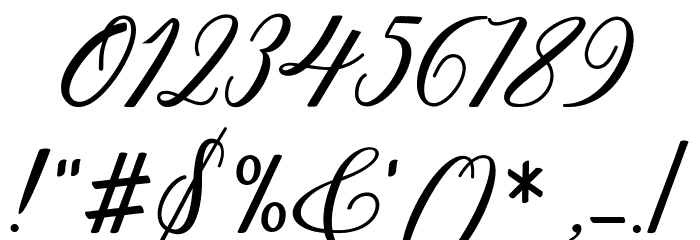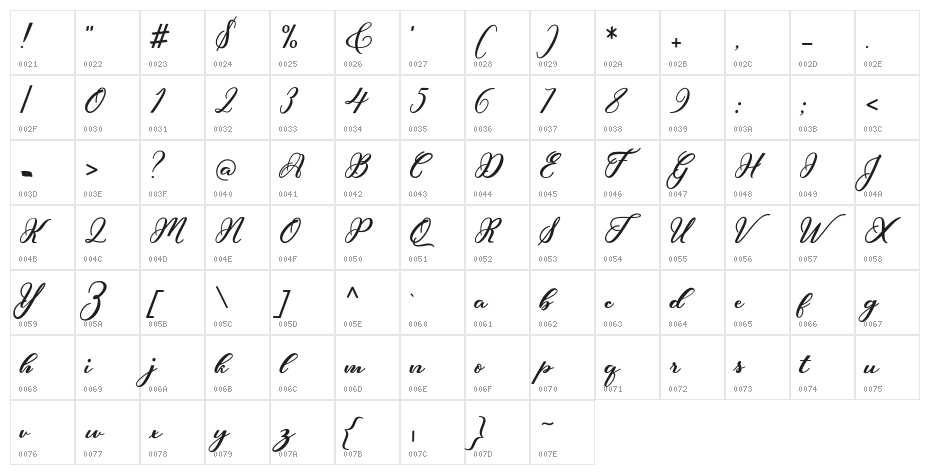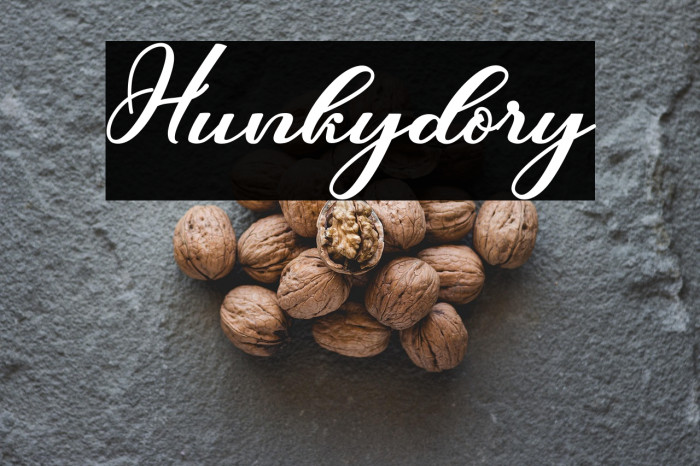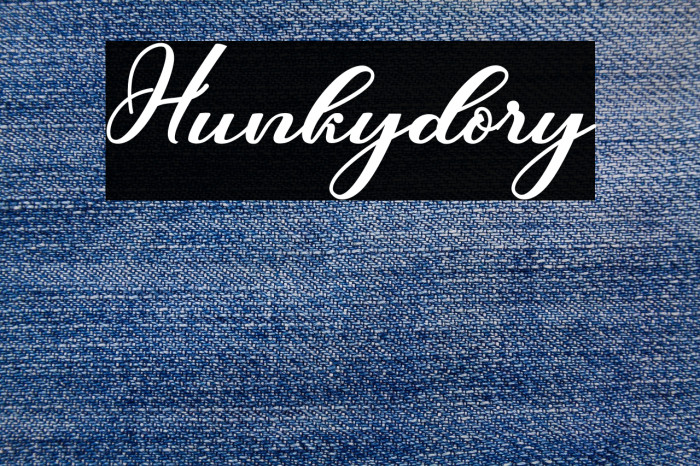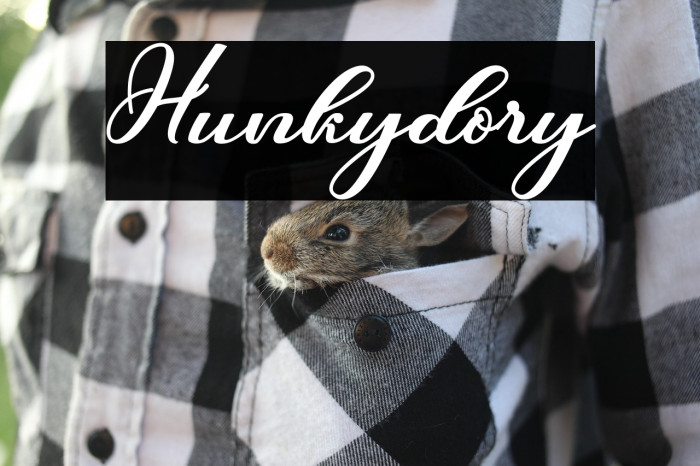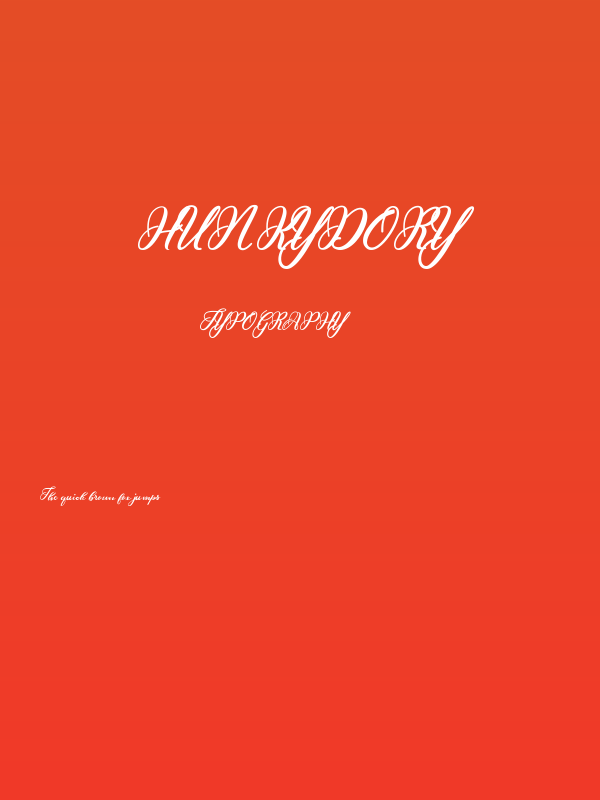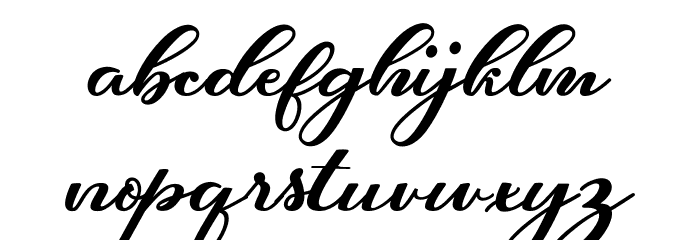
Hunkydory Font
Hunkydory Description
This elegant script font features flowing, interconnected letters with a classic calligraphic style. The uppercase letters are ornate and decorative, with sweeping curves and flourishes that give a sense of movement and grace. The lowercase letters maintain a consistent flow, enhancing readability while retaining the font's sophisticated charm. Numbers and special characters are designed to match the overall aesthetic, making them suitable for a variety of uses. The font's high contrast between thick and thin strokes adds to its visual appeal, making it ideal for formal invitations, branding, and decorative purposes.
| Proposed Projects | Ideal for wedding invitations, luxury branding, greeting cards, and decorative signage. |